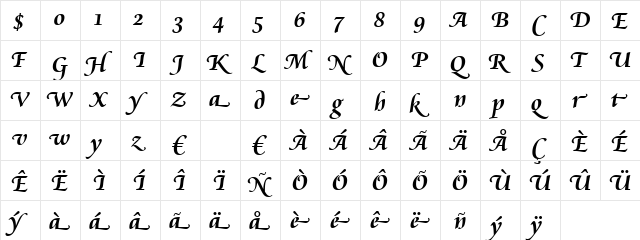
Cataneo Swash BT Bold Swash
Design Context for Cataneo Swash BT Typeface
Cataneo Swash BT brings a calligraphic fluidity to the page — its connecting strokes and expressive curves give it an unmistakably human quality. The heavy weight commands attention and anchors typographic hierarchies.
Font Pairing: Combine Cataneo Swash BT with a simple geometric sans for maximum contrast — the tension between flowing curves and clean structure is a classic typographic pairing.
Pro Tip: Use Cataneo Swash BT for short runs of text — names, titles, or taglines. Extended body copy in script faces tires the eye quickly.